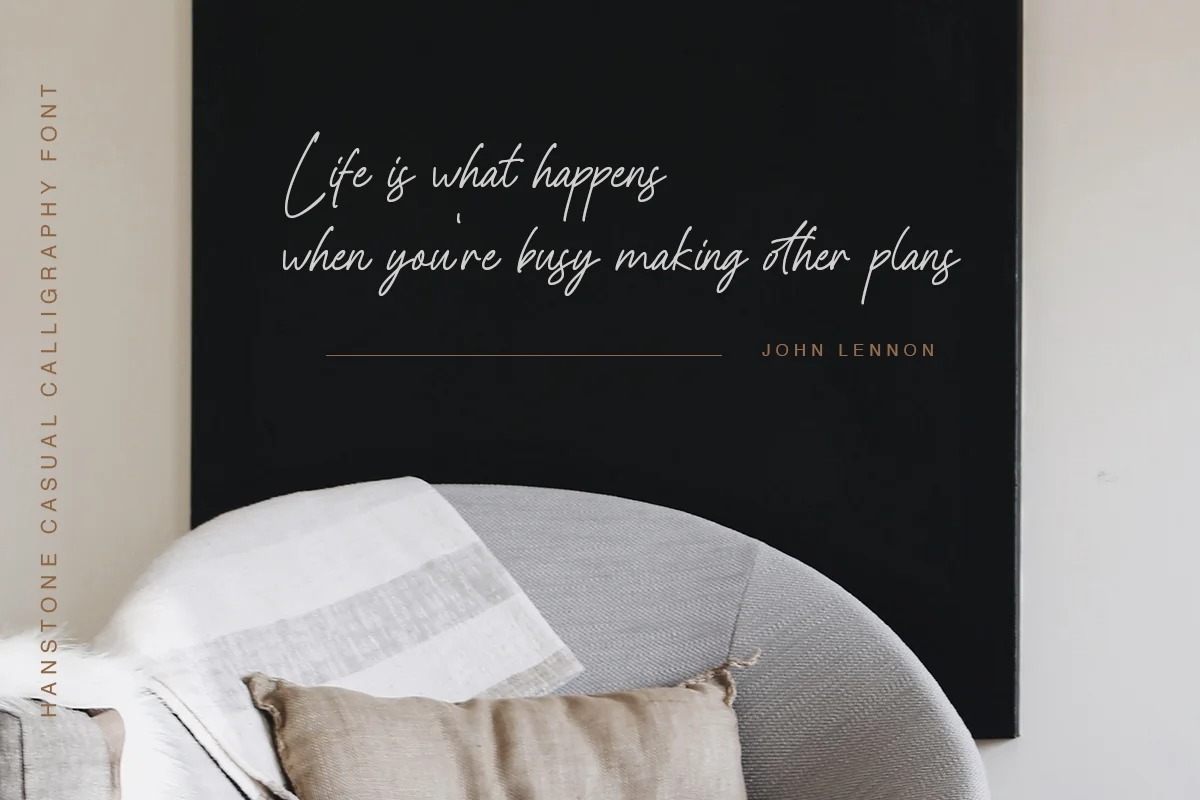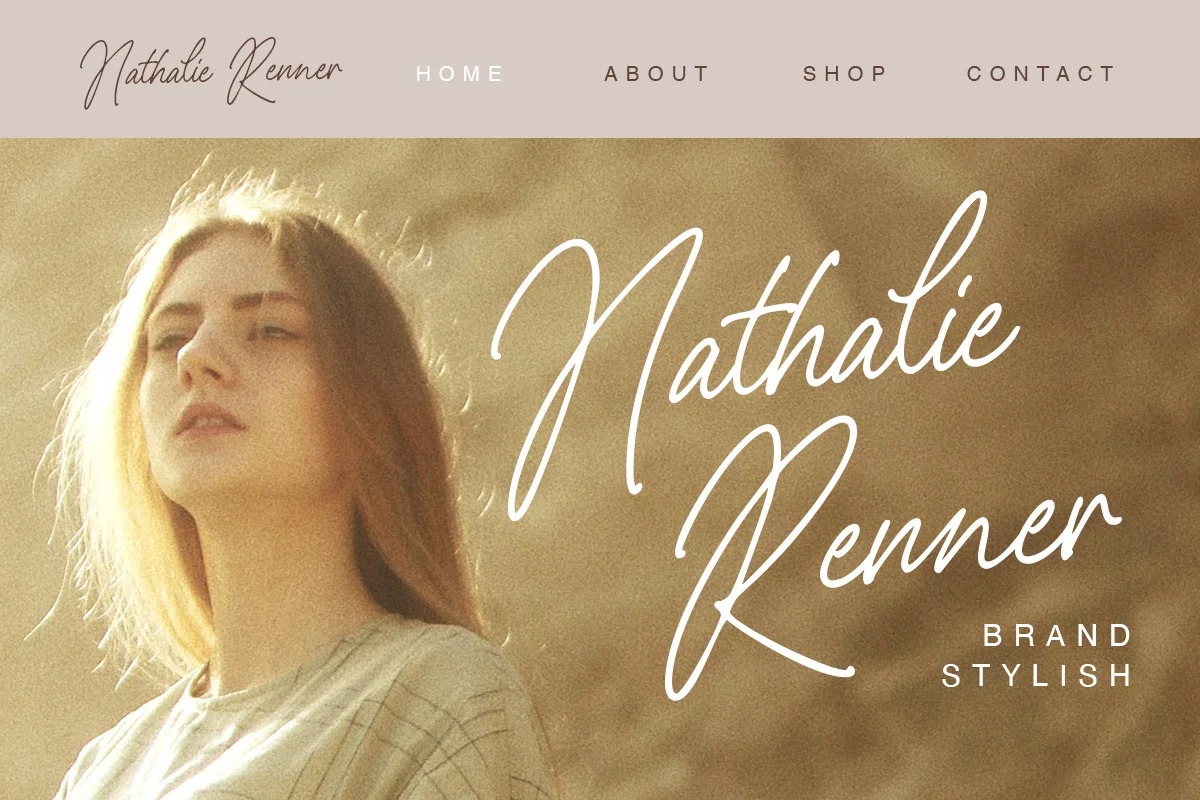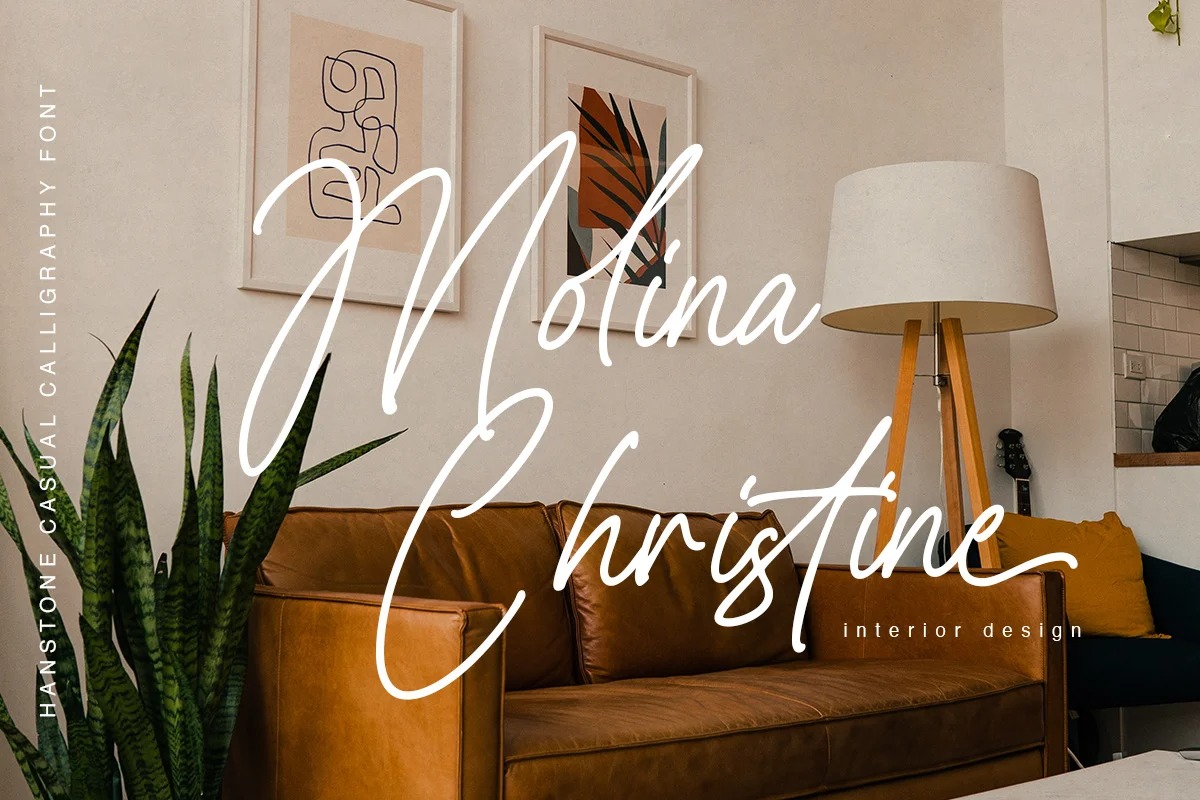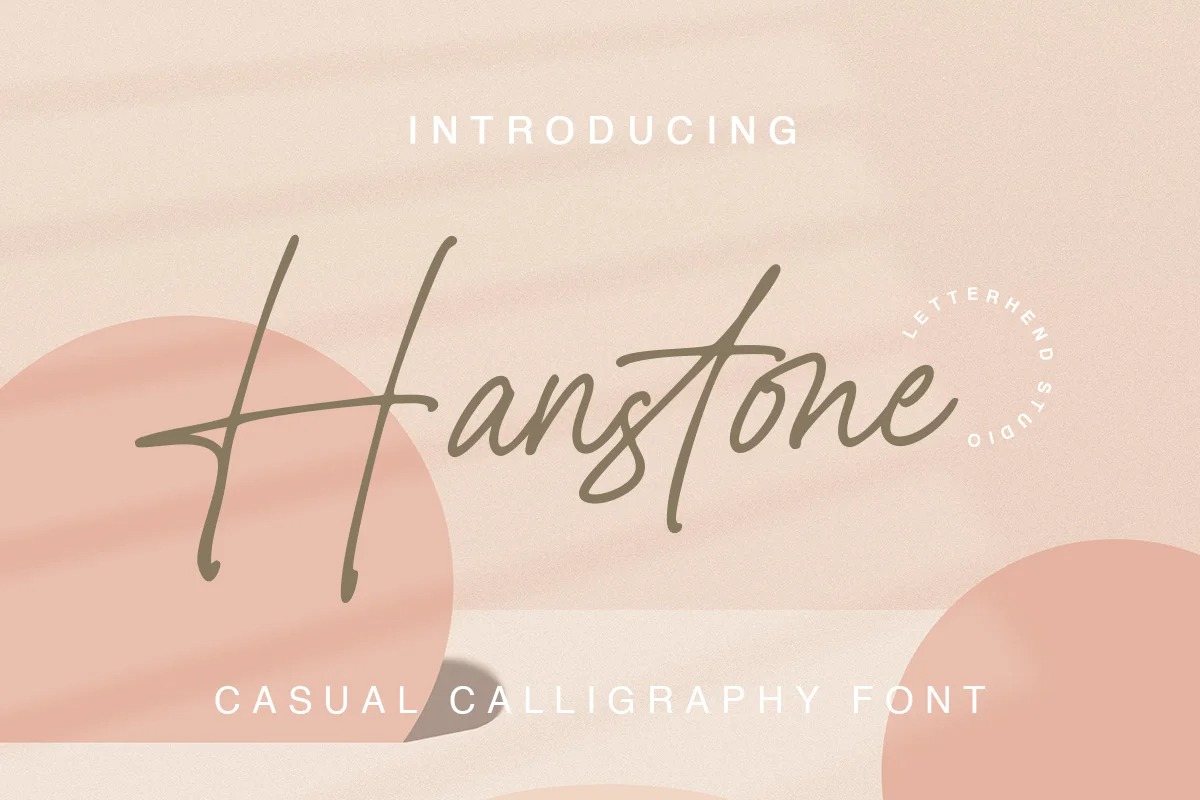
Hanstone Handwritten Font
This is a lovely and timeless handwritten font crafted & designed by Letterhend Studio. The stylistic alternate, ligatures and the tick and thin stroke make this font looks a real hand writing instead of typing a font. This type of font perfectly made to be applied especially in logo, and the other various formal forms such as invitations, labels, logos, magazines, books, greeting / wedding cards, packaging, fashion, make up, stationery, novels, labels or any type of advertising purpose.